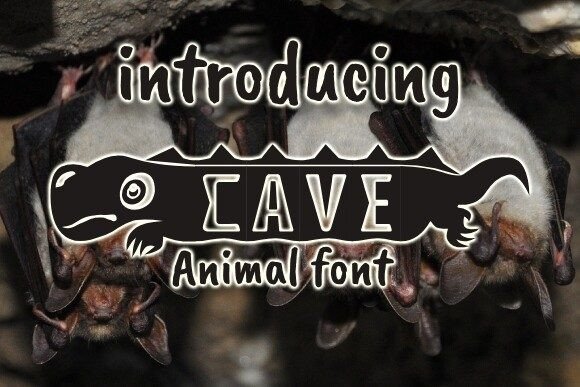
Introduction to Cave Font
Cave is awesome animal font that will look cool on any of Your designs.
Cave Font offers exceptional quality and versatility, making it a valuable addition to your design toolkit. Whether you’re creating for personal projects or commercial use, Cave Font delivers professional results.